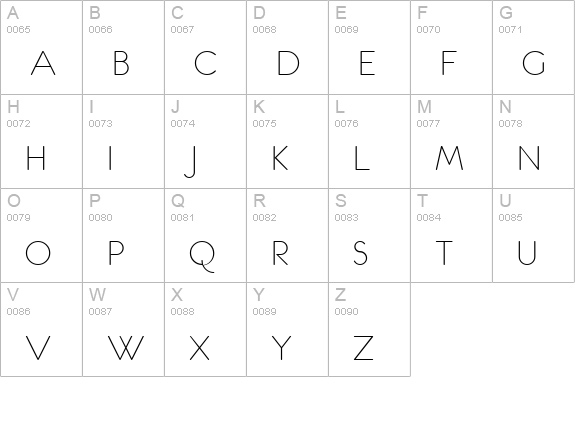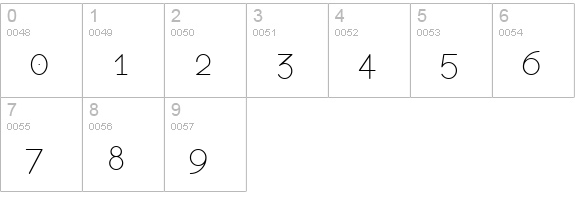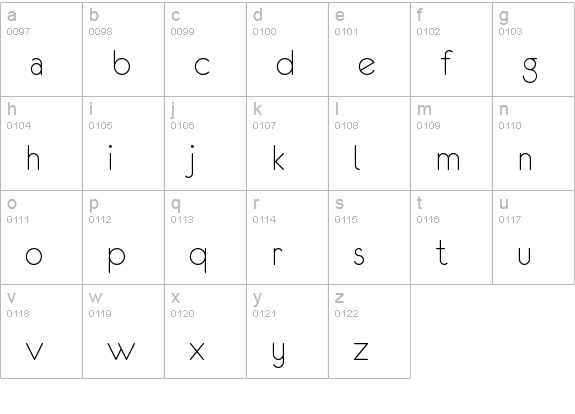
eurofurence light Font Details
eurofurence light is a refined, elegant variant in the eurofurence typeface family \xE2\x80\x94 well suited to elegant body text, refined sub-headings, and luxury branding.
Eurofurence Light is a sleek and modern font that exudes elegance and sophistication. With its clean lines and stylish appearance, this font is perfect for a wide range of design projects, from logos to websites to marketing materials. The light weight adds a touch of sophistication and subtlety to your designs, making them stand out from the crowd. The best part? Eurofurence Light is completely free to download at FontsMarket.com. That's right, you can add this beautiful font to your collection at no cost at all. So why wait? Elevate your designs with Eurofurence Light today and make a lasting impression with its timeless style.